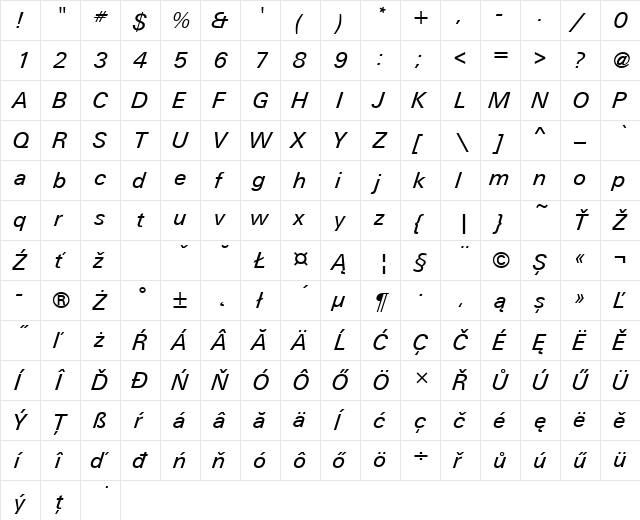
UnitusTEE Italic
Design Context for UnitusTEE Typeface
UnitusTEE offers clean, dependable letterforms without strong stylistic allegiance, making it a practical choice for designers who need flexibility. The dynamic lean of this cut emphasises speed and emphasis in any layout.
Pro Tip: Try UnitusTEE for annotation and caption copy alongside an upright companion — the contrast in angle creates a dynamic but ordered typographic system.